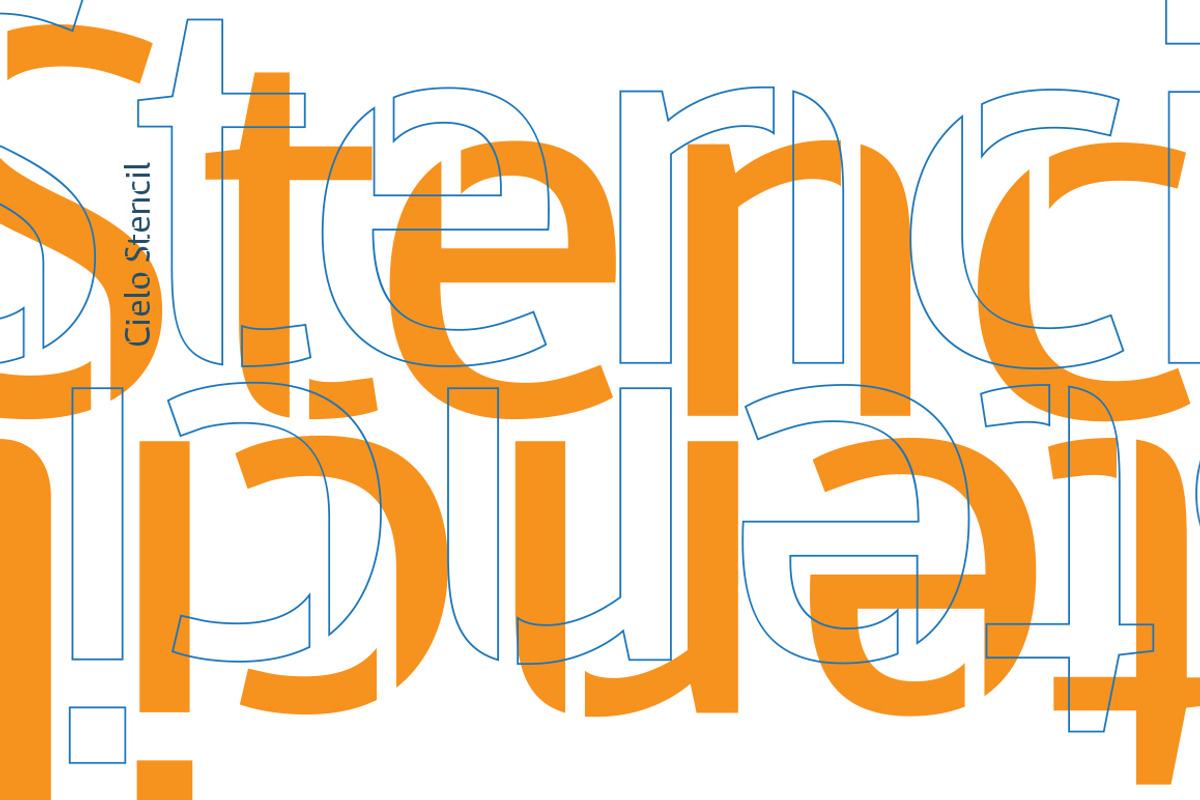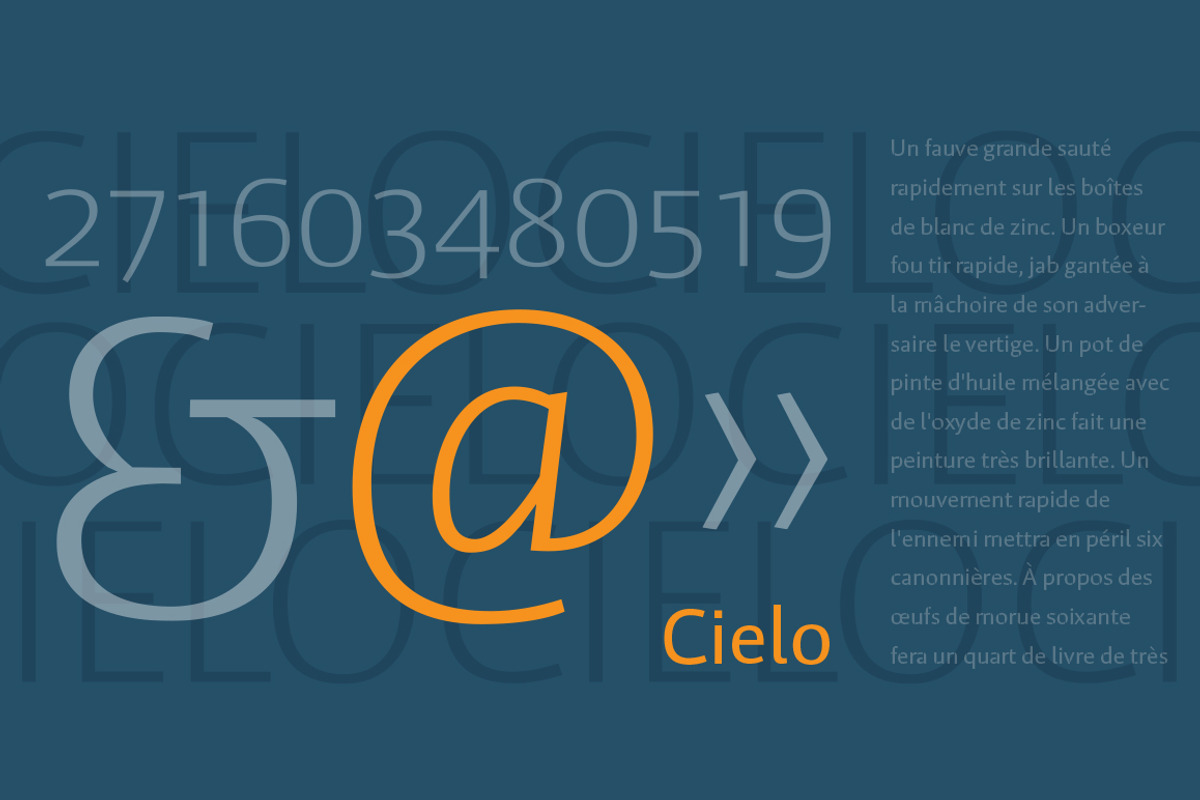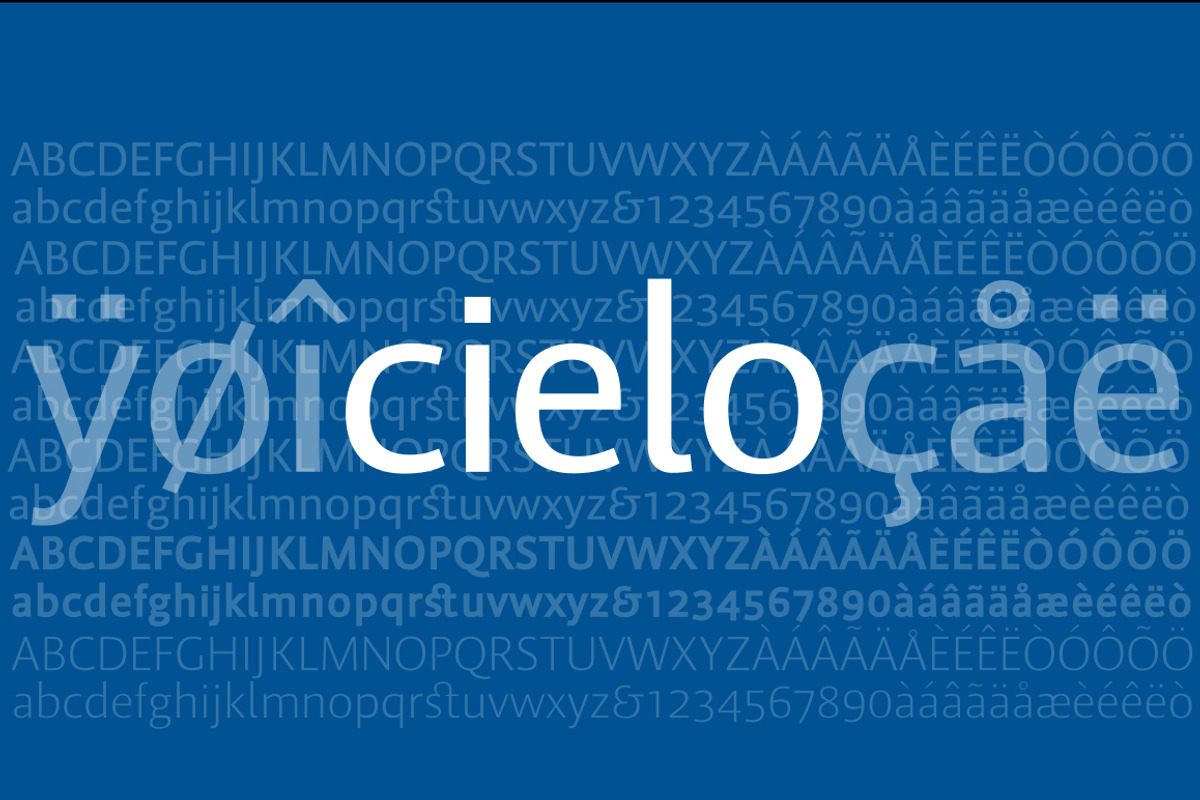
Cielo Font Family - in Opentype
Cielo Font Family - in Opentype by Wilton Foundry is a font selected for branding, posters, packaging, typography.
- Cielo Light
- Cielo Light Italic
- Cielo Regular
- Cielo Italic
- Cielo Bold
- Cielo Bold Italic
- Cielo Stencil
Why Cielo Font Family - in Opentype is worth a look
Cielo Font Family - in Opentype by Wilton Foundry fits naturally into Branding, posters, packaging, typography.